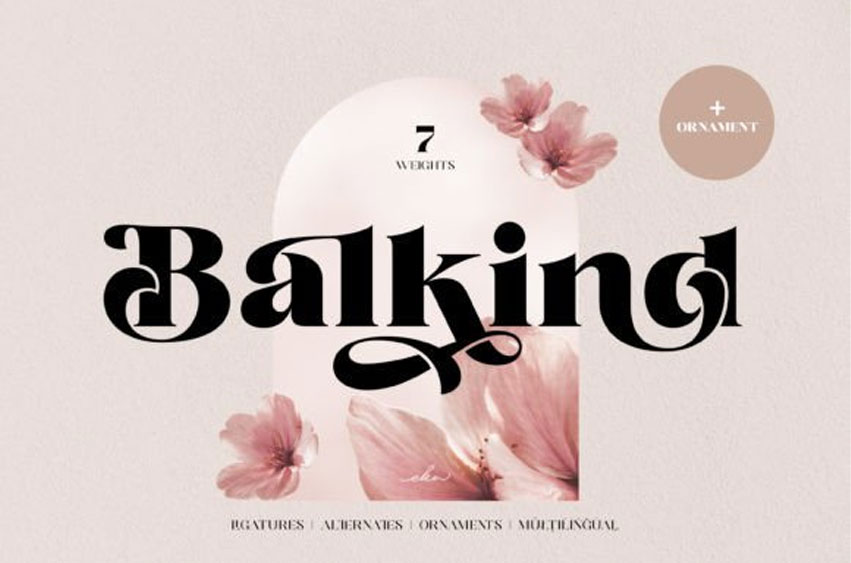
Balkind Font
Balkind Font is a contemporary display font that boasts a minimalist style, perfect for adding a touch of elegance to headlines and titles. Its bold appearance creates a sophisticated and eye-catching look in modern design projects.